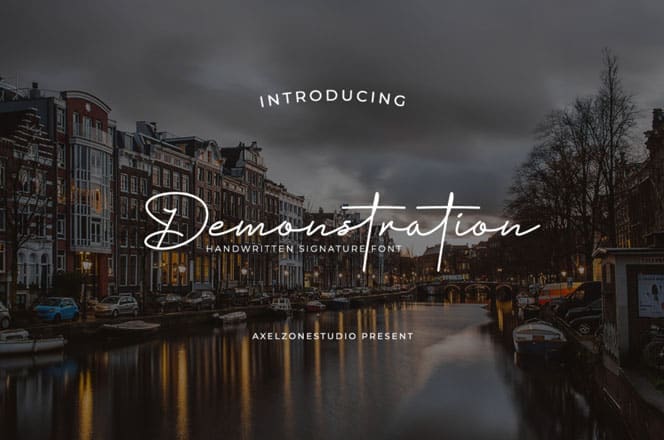
Demonstration Handwritten Font
Demonstration is a Handwritten Font that has a unique stylistic style and memorable for everyone who sees it. Perfect for branding projects, logo, wedding designs, social media posts, advertisements, photography, watermark, invitation, stationery, and other projects.